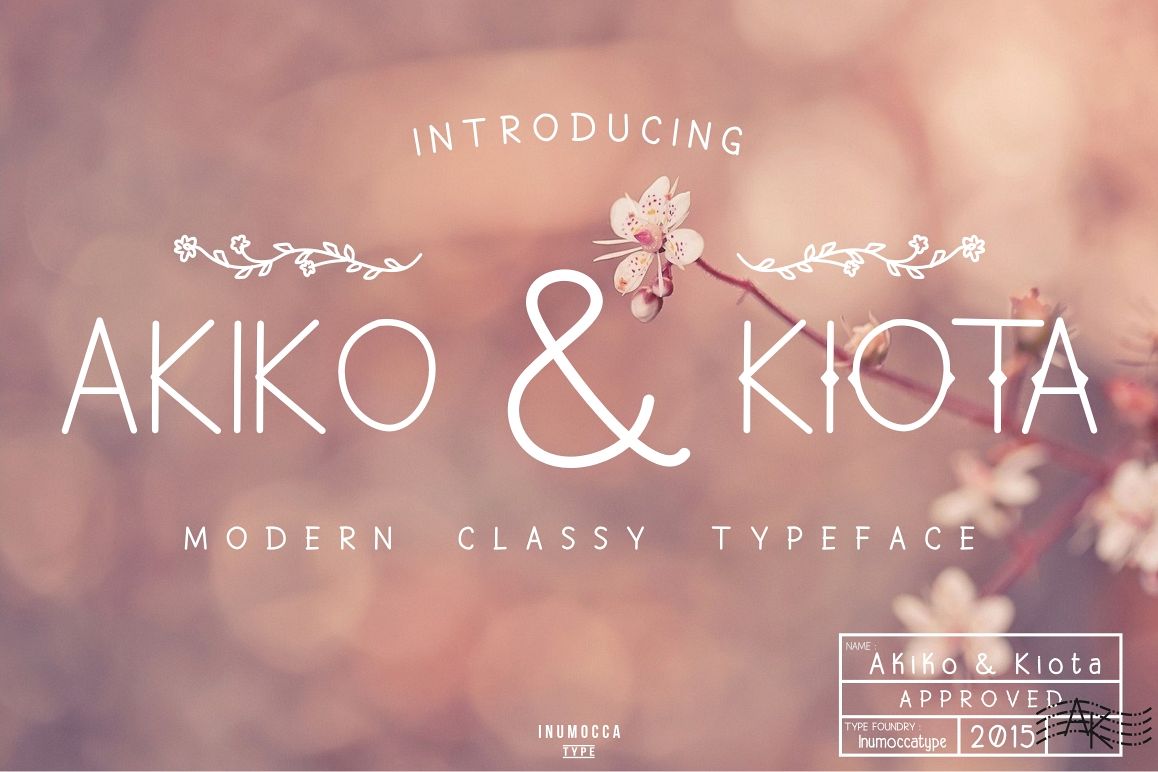
Akiko & Kiota
Akiko shadow.
Akiko.
kiota Bold.
kiota regular.
kiota varsity.
AKIKO & KIOTA its modern classic, really cool to typography, your brand, Logos, catalog , make a vintage badges,invitation, poster, quotes, logo and etc